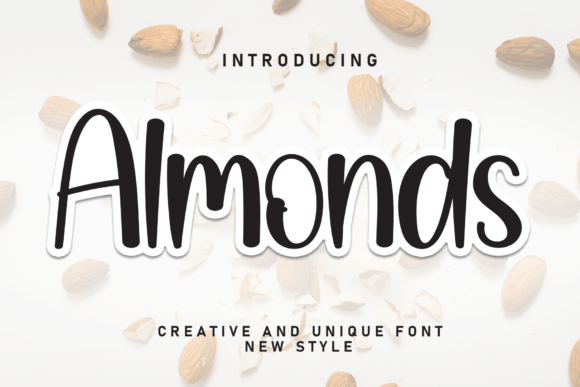
The Almonds Font: A Deliciously Elegant Addition to Your Design Toolkit
Have you ever been in the middle of a design project, and suddenly, you’re stuck on finding the perfect font? I certainly have! It was a typical Wednesday afternoon when I was working on a branding project for a trendy bakery. My client wanted a font that was both elegant and playful, but I just couldn’t seem to find the right fit. That was until I stumbled upon the Almonds font.
This beautifully crafted handwritten font has a touch of sophistication that instantly elevated my design. Whether you’re a designer, crafter, or creative hobbyist, Almonds is sure to become a favorite in your toolkit. In this article, we’ll dive into the world of Almonds font, exploring its features, how to use it, and what makes it so special.
An Honest Review of Almonds Font
So, what makes Almonds font so amazing? Let’s take a closer look.
What I Love About Almonds Font ✨
- 💫 Elegant yet playful: Almonds font strikes the perfect balance between sophistication and whimsy.
- ✅ Highly versatile: Use it for Instagram posts, calligraphy scripts, or any DIY project that needs a touch of elegance.
- 🌈 Beautifully crafted: Each letter is carefully designed to create a stunning visual effect.
- 💻 OpenType features: Almonds font comes with a range of OpenType features, including glyphs and stylistic alternates, making it perfect for creative projects.
While Almonds font is an excellent addition to any design toolkit, there are a few minor limitations to consider:
- ⚠️ Limited use in formal contexts: Due to its playful nature, Almonds font may not be the best fit for formal documents or corporate branding.
- 🤔 Occasional kerning issues: As with any font, you may encounter some kerning issues, especially when using it in combination with other fonts.
The Backstory of Almonds Font
Almonds font was designed with the intention of creating a beautiful, elegant script font that would add a touch of sophistication to any design project. The designer, inspired by the beauty of handwritten calligraphy, carefully crafted each letter to create a stunning visual effect. The result is a font that is both elegant and playful, perfect for a wide range of creative projects.
Q: What is Almonds font best used for?
A: Almonds font is best used for creative projects that require a touch of elegance and playfulness, such as Instagram posts, calligraphy scripts, and DIY projects.
Q: Is Almonds font suitable for formal documents?
A: While Almonds font is elegant, it may not be the best fit for formal documents due to its playful nature.